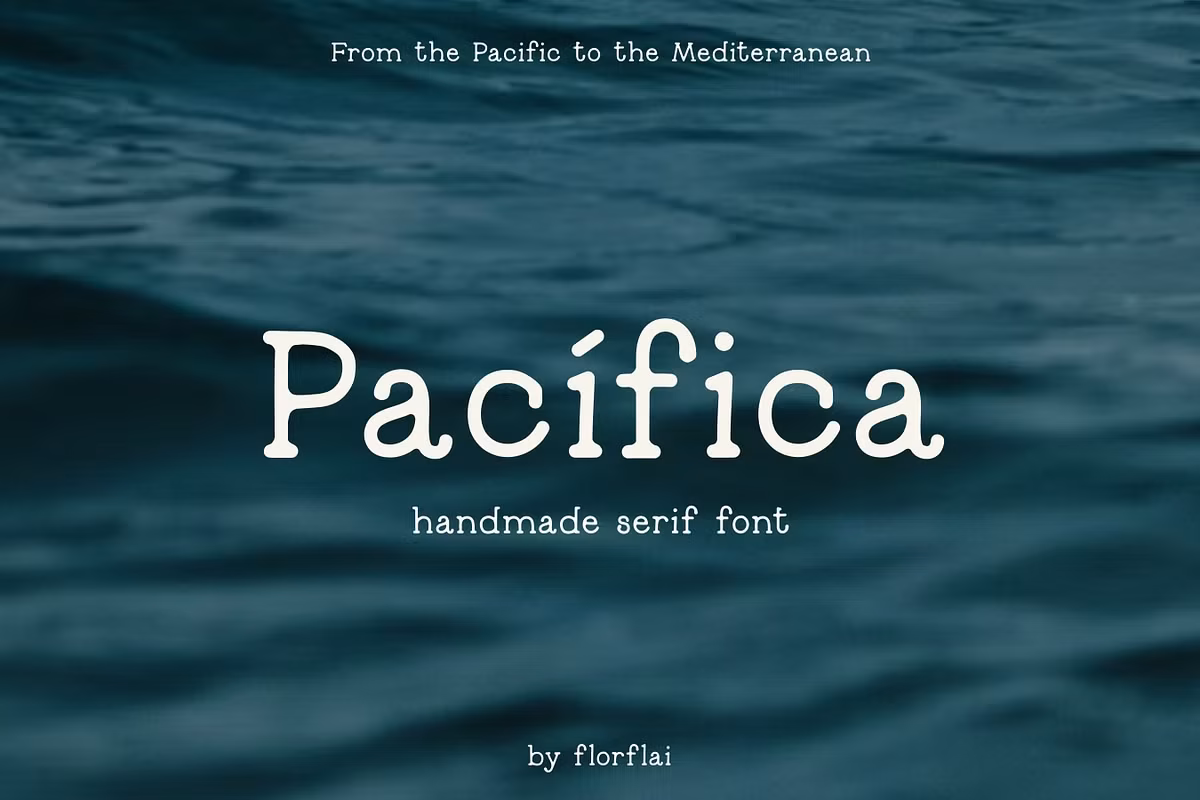
Custom LETTERING TYPEFACE Collection Free Download
Custom LETTERING TYPEFACE Collection Free Download is a unique bundle of hand-crafted fonts designed to bring character and originality to your creative projects. This collection includes a variety of lettering styles—from bold brush scripts to elegant hand-drawn serifs—making it perfect for logos, branding, apparel design, packaging, and custom merchandise. Each typeface in the set offers a distinct personality, giving you the freedom to craft truly standout visuals.
Whether you're aiming for a rustic, artistic vibe or a polished, modern look, Custom LETTERING TYPEFACE Collection Free Download gives you the versatility to experiment and combine styles for maximum impact. The handcrafted nature of these fonts ensures your work feels personal, expressive, and creatively authentic.